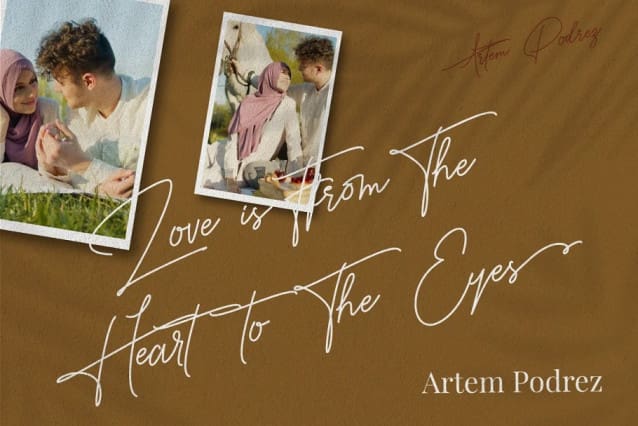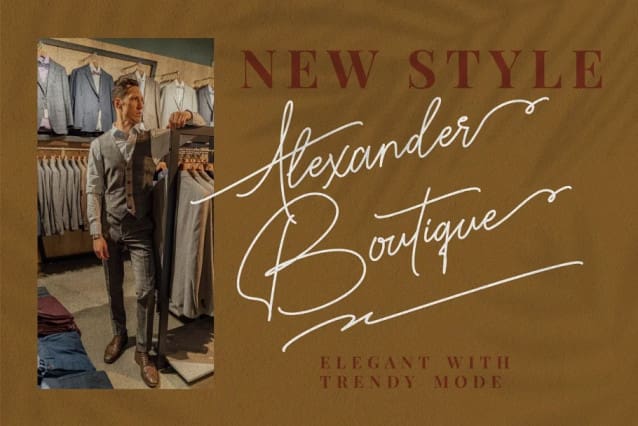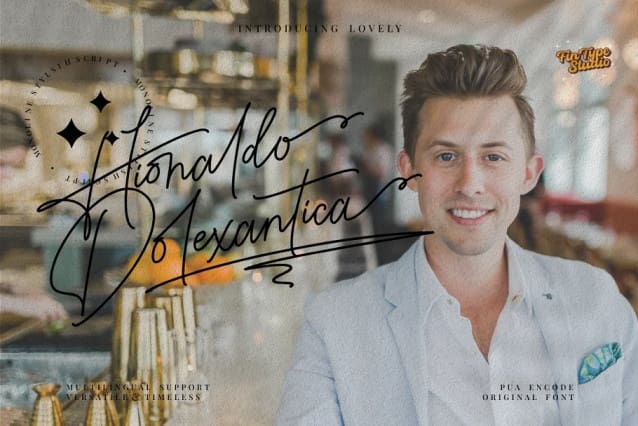
Hionaldo Dolexantica Font
Hionaldo Dolexantica Font – Monoline Signature Font , from FinTypeStudio, suitable for any projects such as: logos, branding projects, homeware designs, product packaging, mugs, quotes, posters, shopping bags, t-shirts, book covers, name card, invitation cards, greeting cards, label, photography, watermark, special events, and all your other lovely projects that need a beautiful script taste.